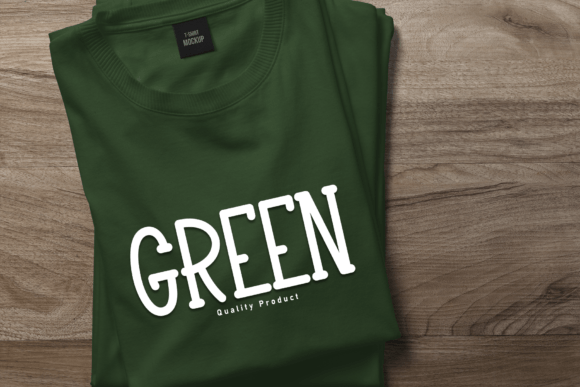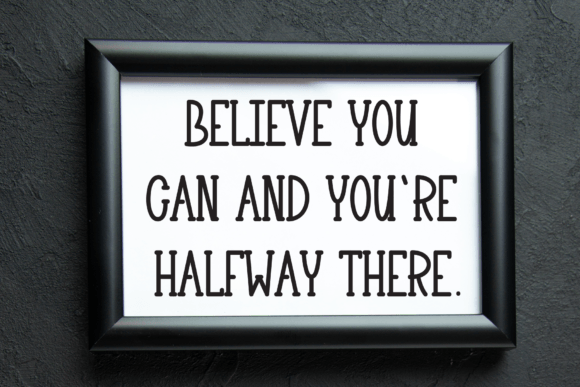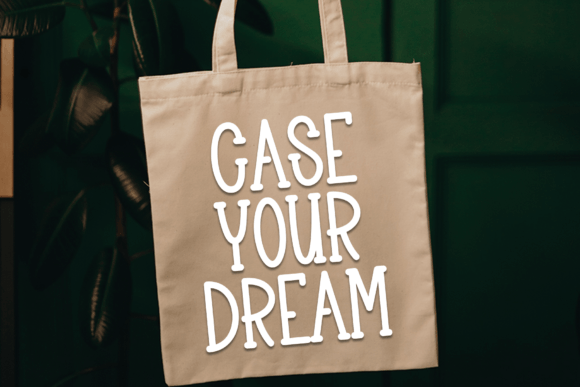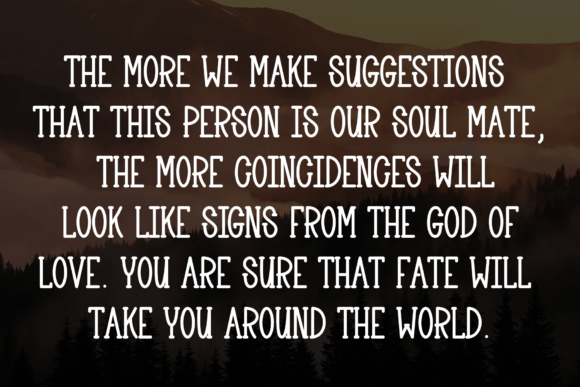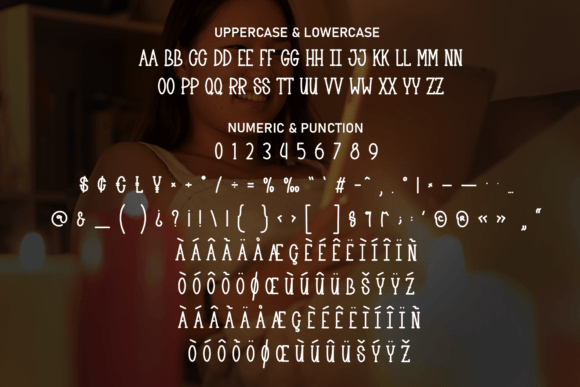
Introducing Happy Night Font: The Perfect Casual Handwritten Style for Your Designs
Are you looking for a font that can add a relaxed and friendly vibe to your designs? Look no further than Happy Night Font. This casual handwritten font is designed to capture the essence of natural, flowing strokes, making it perfect for personal projects, social media, and invitations. With its effortless and charming touch, Happy Night Font is sure to bring warmth and authenticity to any design.
The Characteristics of Happy Night Font
Happy Night Font is a unique and stylish font that boasts a range of characteristics that make it stand out from other fonts. Some of its key features include:
- Natural and flowing strokes: Happy Night Font has a natural, handwritten feel that is achieved through its flowing strokes. This gives the font a relaxed and friendly vibe that is perfect for designs that need to feel approachable and charming.
- Casual and effortless style: The font has a casual and effortless style that makes it perfect for personal projects, social media, and invitations. It’s ideal for designers who want to create a laid-back and informal feel in their designs.
- Warmth and authenticity: Happy Night Font adds a touch of warmth and authenticity to any design. Its friendly and approachable style makes it perfect for designers who want to create a connection with their audience.
Uses for Happy Night Font
Happy Night Font is a versatile font that can be used in a range of design projects. Some of the most popular uses for the font include:
- Personal projects: Happy Night Font is perfect for personal projects, such as scrapbooking, journaling, and crafting. Its casual and effortless style makes it ideal for creating unique and personalized designs.
- Social media: The font is also great for social media, where it can be used to create eye-catching posts and graphics. Its friendly and approachable style makes it perfect for engaging with your audience.
- Invitations: Happy Night Font is a great choice for invitations, such as birthday parties, baby showers, and weddings. Its charming and elegant style makes it perfect for creating beautiful and memorable invitations.
Why Choose Happy Night Font?
There are many reasons why designers and crafters should choose Happy Night Font for their projects. Some of the benefits of using the font include:
- Unique and stylish: Happy Night Font is a unique and stylish font that will add a touch of personality to any design.
- Easy to read: The font is easy to read, making it perfect for designs that need to communicate a message clearly.
- Versatile: Happy Night Font is a versatile font that can be used in a range of design projects, from personal projects to commercial designs.
Tips for Using Happy Night Font
Here are some tips for using Happy Night Font in your designs:
- Use it with a simple background: Happy Night Font looks best with a simple background that doesn’t compete with the font. Try using it with a plain colored background or a subtle texture.
- Experiment with different colors: The font looks great in a range of colors, so don’t be afraid to experiment and find the perfect color for your design.
- Pair it with other fonts: Happy Night Font can be paired with other fonts to create a unique and interesting design. Try pairing it with a bold font for a striking contrast.
Happy Night Font is a unique and stylish font that is perfect for designers and crafters who want to add a relaxed and friendly vibe to their designs. With its natural, flowing strokes and effortless style, it’s ideal for personal projects, social media, and invitations. Whether you’re looking to create a charming and elegant design or a bold and eye-catching one, Happy Night Font is a great choice.
So why not give Happy Night Font a try? With its versatility, ease of use, and charming style, it’s sure to become a favorite in your design toolkit.